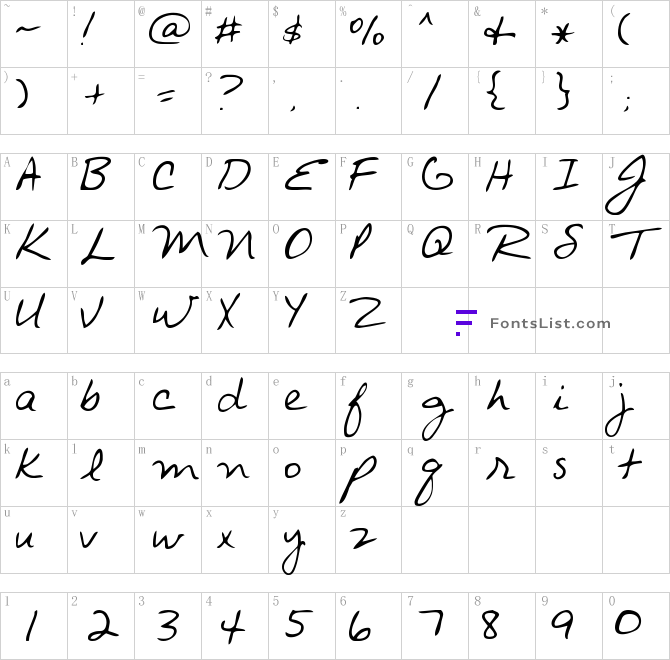
- Full Name:Avant que... MF
Avant-que-MF(1).ttf is a very beautiful artistic font, Avant-que-MF(1).ttf is widely used in the design and printing of various books and pictures,Avant-que-MF(1).ttf has a strong visual impact,Avant-que-MF(1).ttf is a commonly used font in newspapers, magazines and books, and is used in posters, e-commerce Poster design, store design, logo design, font design and other fields.Avant-que-MF(1).